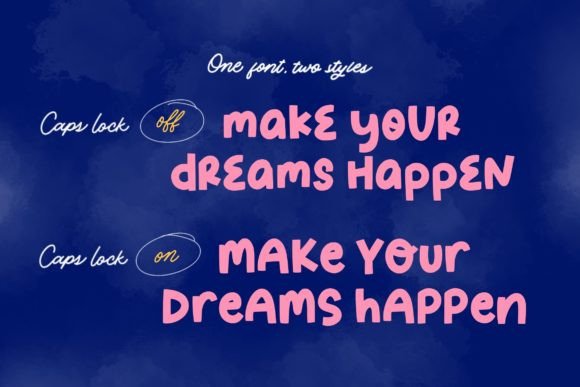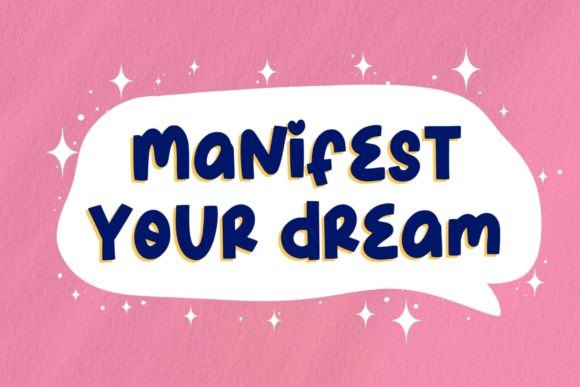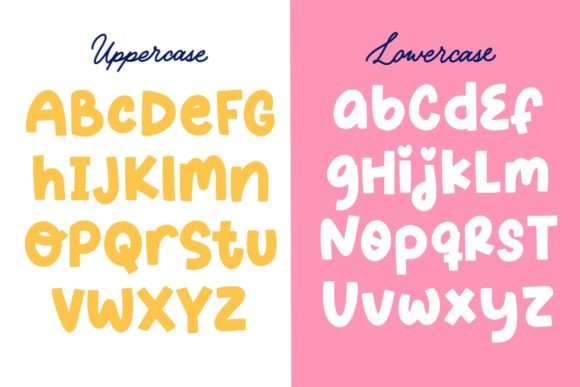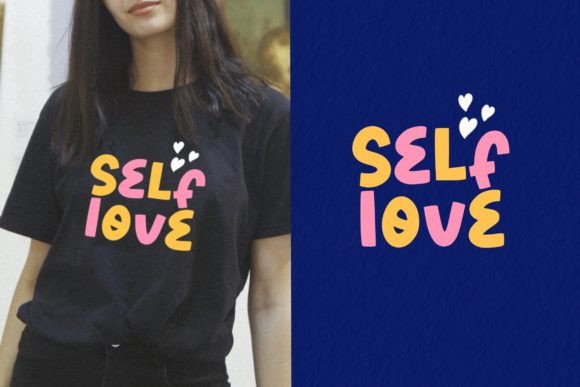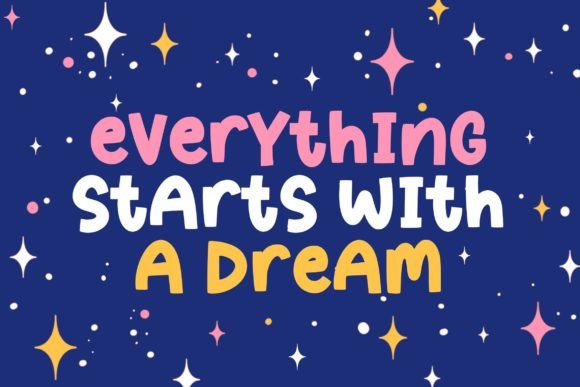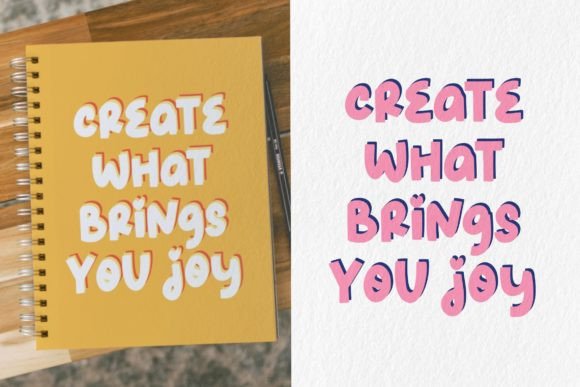
Introducing Double Sandwich Font: The Playful Sans Font for Fun and Creative Designs
Are you looking for a font that can add a touch of playfulness and fun to your designs? Look no further than the Double Sandwich font! This sans font comes in two stylish styles, making it perfect for a wide range of creative projects, from stickers and greeting cards to logos, posters, and more.
What Makes Double Sandwich Font So Special?
Double Sandwich font is designed to bring a sense of fun and playfulness to your designs. Its unique and quirky style makes it stand out from other fonts, and its versatility ensures that it can be used in a variety of contexts. Whether you’re creating a logo for a children’s brand, designing a poster for a fun event, or crafting a greeting card for a special occasion, Double Sandwich font is the perfect choice.
Double Sandwich font is perfect for designers and crafters who want to add a touch of whimsy to their work. Here are just a few examples of the many projects where this font can shine:
- Stickers: Add a playful touch to your stickers with Double Sandwich font. Its fun and quirky style makes it perfect for stickers that need to stand out.
- Greeting Cards: Create unique and eye-catching greeting cards with Double Sandwich font. Its playful style is sure to bring a smile to the recipient’s face.
- Logos: Double Sandwich font is perfect for logos that need to convey a sense of fun and playfulness. It’s ideal for brands that cater to children or young adults.
- Posters: Create eye-catching posters with Double Sandwich font. Its bold and playful style makes it perfect for posters that need to grab attention.
Combining Double Sandwich Font with Script Fonts
One of the best things about Double Sandwich font is that it can be easily combined with script fonts to create a unique and interesting design. The contrast between the playful sans font and the elegant script font can add depth and visual interest to your design. This makes Double Sandwich font a great choice for designers who want to create complex and eye-catching designs.
PUA Encoded for Easy Use
Key Features of Double Sandwich Font
- Playful sans font: Double Sandwich font is a fun and playful sans font that can add a touch of whimsy to your designs.
- Two stylish styles: Double Sandwich font comes in two stylish styles, giving you flexibility and options for your designs.
- Perfect for a wide range of design projects: Double Sandwich font is perfect for stickers, greeting cards, logos, posters, and more.
In conclusion, Double Sandwich font is a playful sans font that can add a touch of fun and whimsy to your designs. Its unique and quirky style makes it perfect for a wide range of creative projects, from stickers and greeting cards to logos and posters. With its two stylish styles, PUA encoding, and versatility, Double Sandwich font is a great choice for designers and crafters who want to create fun and eye-catching designs.